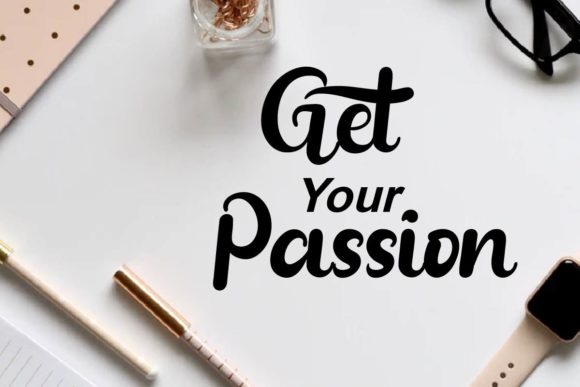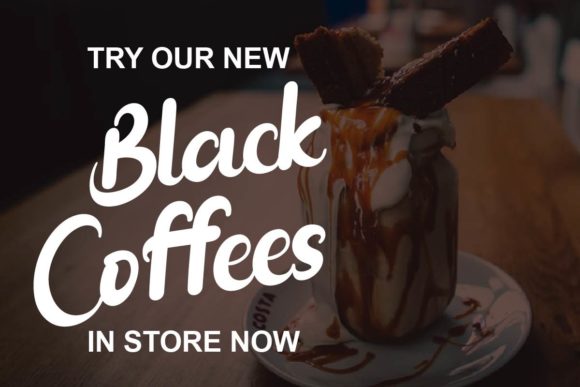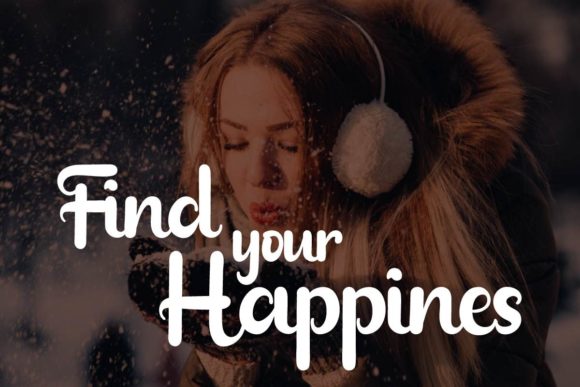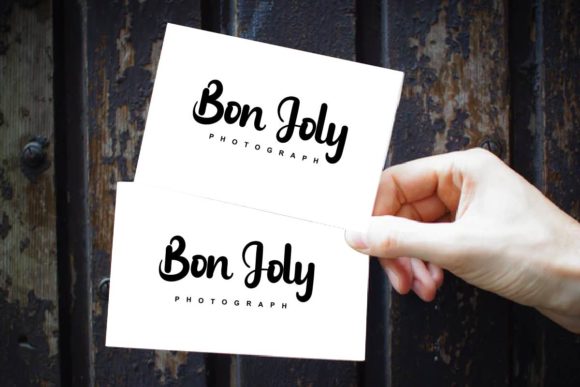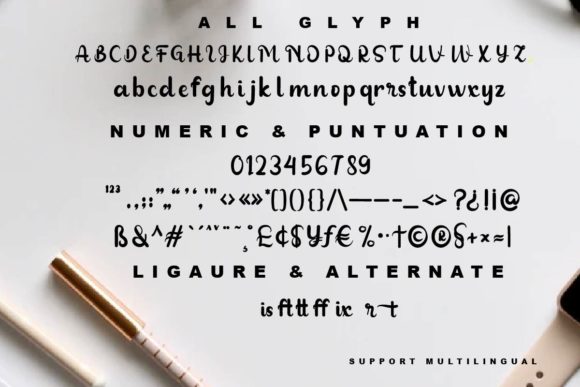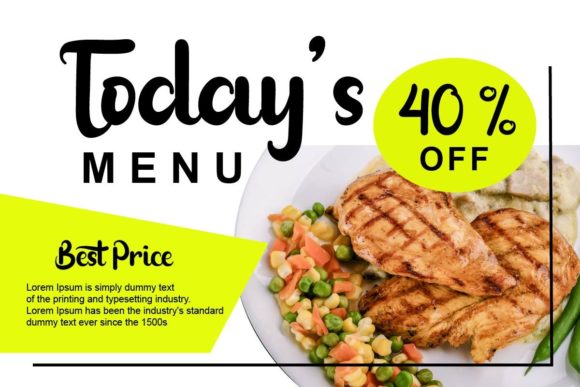
The Perfect Match for Your Next Creative Project
Have you ever stared at a blank page, waiting for inspiration to strike? You’re not alone. We’ve all been there, searching for that one thing to make our ideas truly shine. For designers, finding the right font can be the difference between a mediocre design and a masterpiece. That’s where the Blackisot Font comes in – a chic and friendly handwritten font that’s sure to add a personal touch to your projects.
Whether you’re working on a branding project, creating a social media campaign, or designing a product label, the Blackisot Font is an excellent choice. Its versatility makes it easy to match with a wide range of projects, from elegant invitations to playful advertisements. By incorporating this font into your design, you’ll instantly add a unique and eye-catching element that sets your work apart from the crowd.
Blackisot Font Key Features
- Unique Characteristics: The font features a unique blend of modern and vintage elements, with distinctive letterforms and ornaments.
- Kerning and Ligatures: Offers advanced kerning and ligature features for improved text readability and aesthetic appeal.
Review: Blackisot Font
Overall, I was impressed with the unique style of Blackisot Font. Here’s a breakdown of what works well and what doesn’t:
- Unique and bold design – Blackisot Font definitely stands out from the crowd with its distinctive style.
- High legibility – Despite its bold appearance, the font is still easy to read, making it suitable for a variety of applications.
- Well-suited for headings – The font’s boldness makes it perfect for use in headings and titles.
- Limited font sizes – While the font looks great in larger sizes, it can appear a bit rough in smaller sizes.
- Lack of italics and bold variants – While the font’s bold style is great, it would be nice to have more variations to work with.
- May not be suitable for body text – While the font is legible, it may be a bit too bold for use in body text, which could make it difficult to read.
Overall, Blackisot Font is a great choice for designers looking for a bold, eye-catching font. While it may have some limitations, its unique style and high legibility make it a great addition to any design project.
Headings and titles
Quote or caption text
Designing a vintage or retro-themed project
Adding a unique touch to your branding or marketing materials
Alternatives to Blackisot Font for Designers
Playfair Display is a luxurious and elegant serif font, perfect for titles and headings. It’s ideal for use in high-end branding, luxury products, and sophisticated publications. Compared to Blackisot Font, Playfair Display has a more refined and classic look, with intricate details and a wider range of font sizes.
Great Vibes is a modern and elegant script font, suitable for creative and artistic projects. It’s perfect for use in titles, headings, and body text, especially in magazines, blogs, and websites. Compared to Blackisot Font, Great Vibes has a more relaxed and casual feel, with a softer and more fluid design.
Merriweather is a classic and timeless serif font, ideal for use in body text and publications. It’s perfect for use in newspapers, magazines, and books, where a clear and readable font is required. Compared to Blackisot Font, Merriweather has a more traditional and conservative look, with a stronger emphasis on readability.
Pacifico is a modern and elegant sans-serif font, perfect for use in creative and artistic projects. It’s ideal for use in titles, headings, and body text, especially in magazines, blogs, and websites. Compared to Blackisot Font, Pacifico has a more relaxed and casual feel, with a softer and more fluid design, and a more open and airy look.